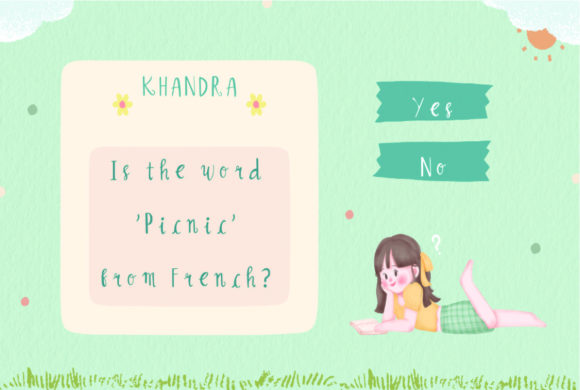
Introducing Khandra Font, the captivating script typeface crafted to transform your designs into works of art. Its playful and modern handwritten style evokes a sense of joy and vitality.
Embrace Khandra's lightweight yet impactful presence, ideal for creating stunning product packaging designs that demand attention. Let your brand's name tags shimmer with a touch of individuality, leaving a lasting impression on your clients.
Step into the world of marketing with confidence, knowing that Khandra will elevate your materials to new heights. Craft event posters that ignite excitement and draw your audience in. Unleash your creativity with invitations that exude warmth and elegance.
Khandra's versatility knows no bounds. Its graceful curves dance effortlessly across any surface, adding a touch of whimsy to invitations, greeting cards, and more. Its playful spirit brings a sense of celebration to every project.
Created by the renowned Smile Design, Khandra is not just a font; it's a tool of expression. Its charming and versatile nature empowers you to create designs that radiate personality and leave a lasting impression.
Make Khandra the star of your next project and witness the transformation it brings. Embrace the joy of handwritten art and let your creations speak volumes with every stroke.